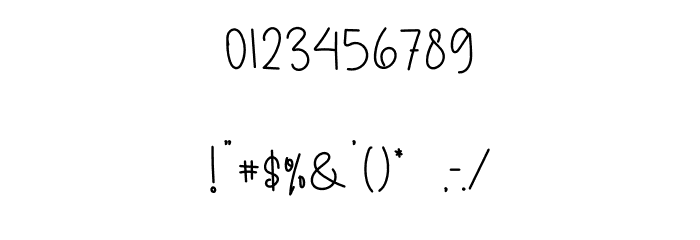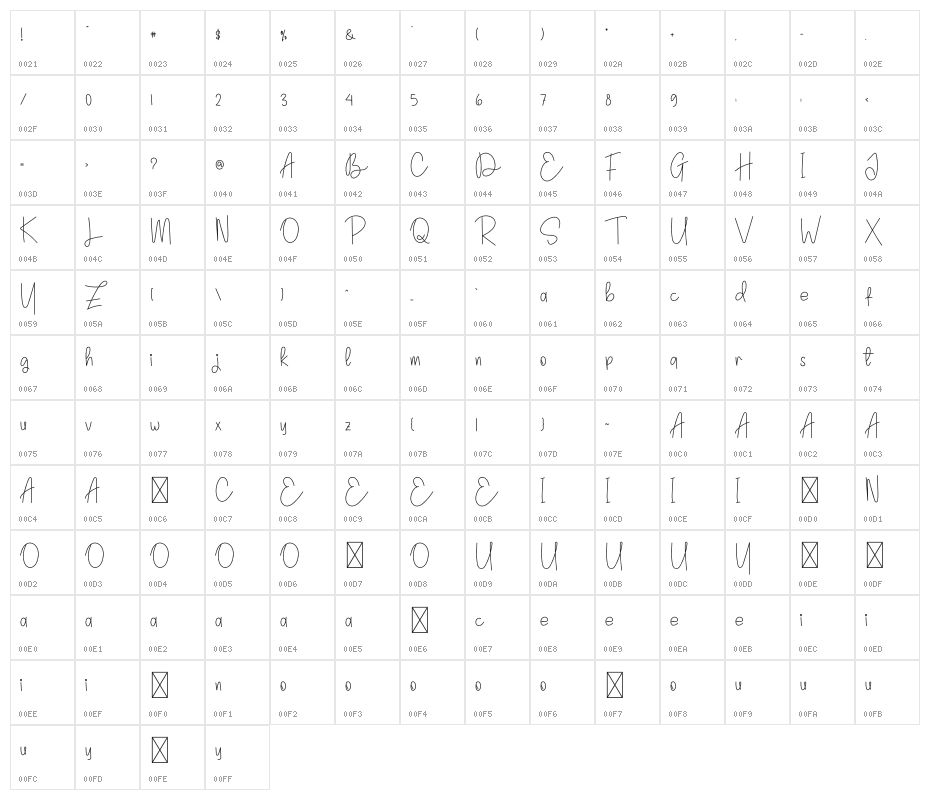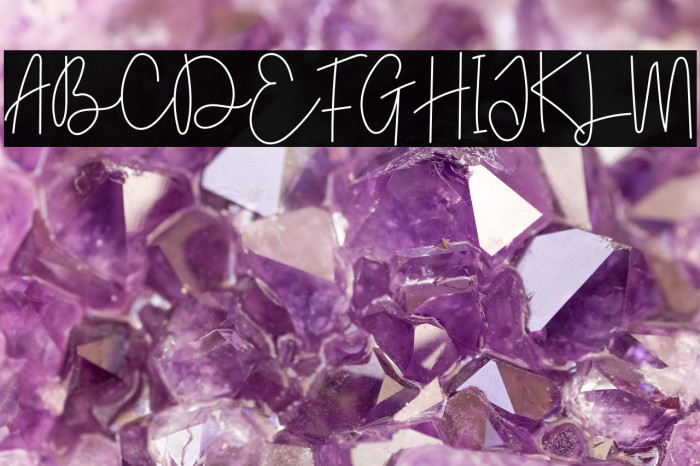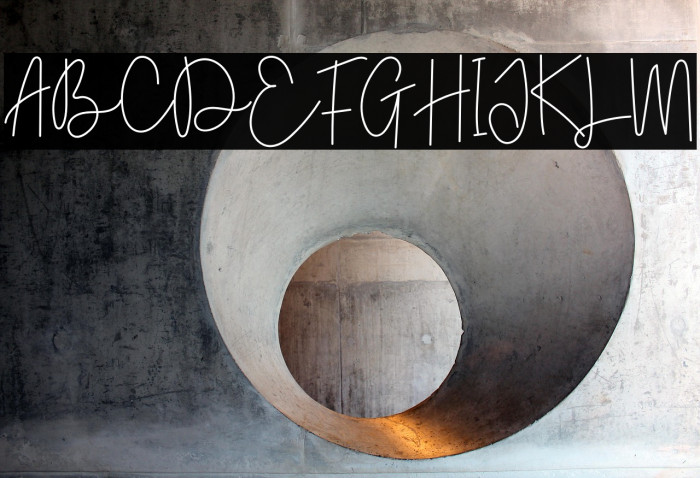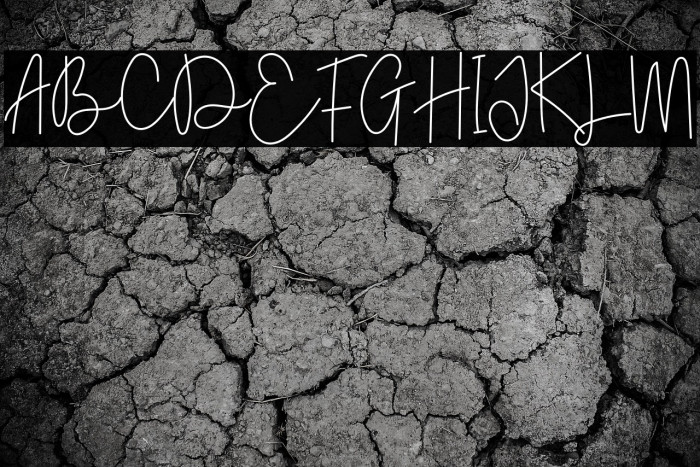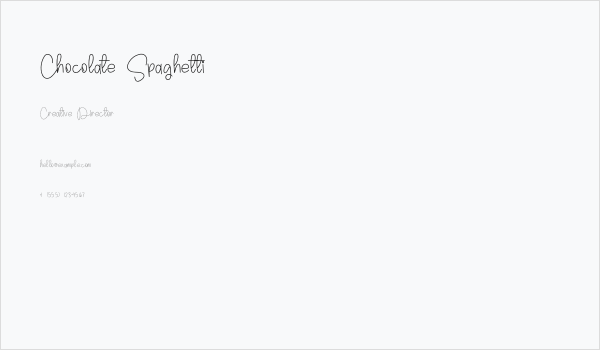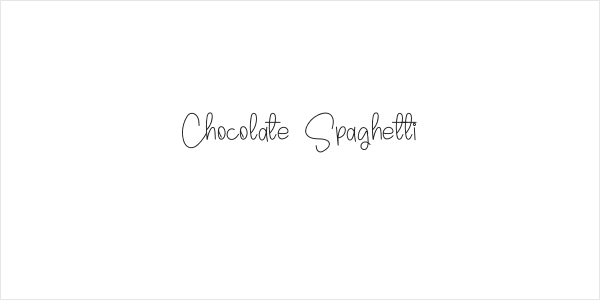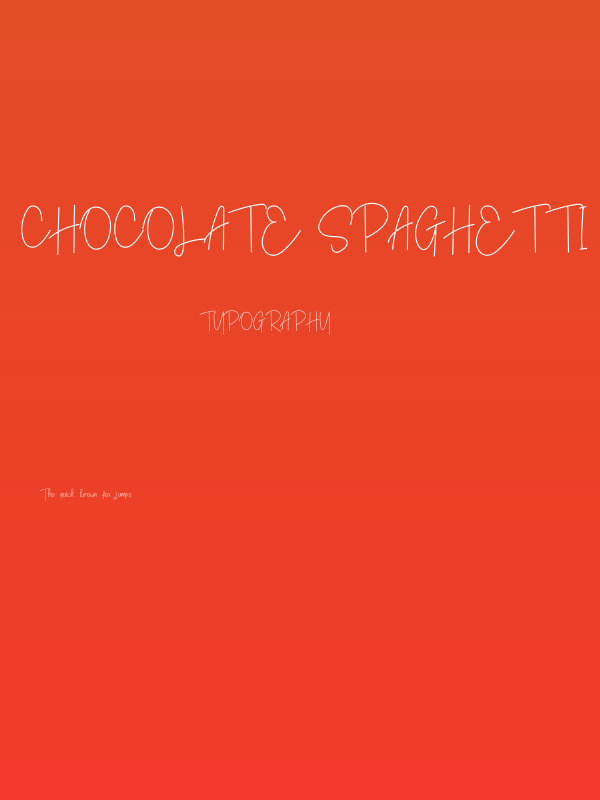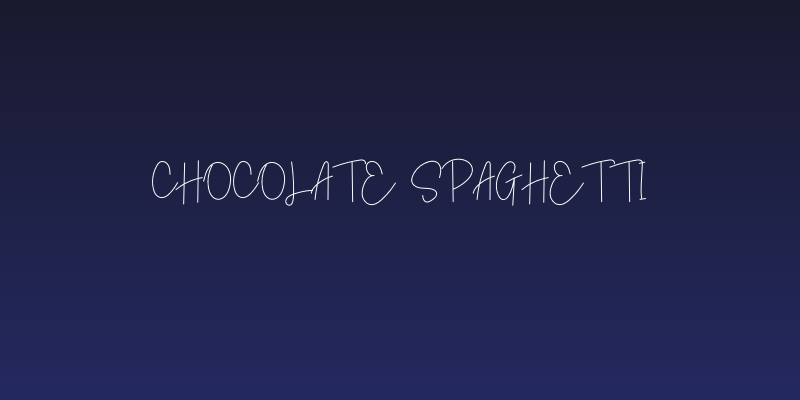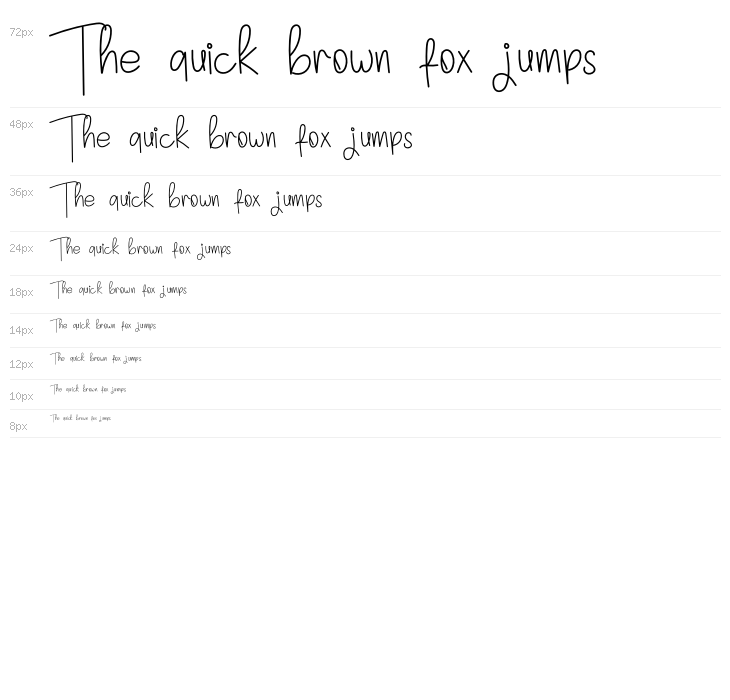
Chocolate Spaghetti Font
Chocolate Spaghetti Description
This playful and whimsical font features a handwritten style with a unique, flowing character design. The letters are tall and slender, with a slight slant that adds a dynamic feel. The strokes are consistent in width, giving it a clean and modern look. The uppercase letters are particularly elongated, while the lowercase letters maintain a more compact form. The numbers and special characters are designed to match the overall aesthetic, making it versatile for various uses. Its informal and friendly appearance makes it ideal for creative projects.
| Overall Style | Whimsical |
| Proposed Projects | Ideal for greeting cards, invitations, children's books, and playful branding projects. |